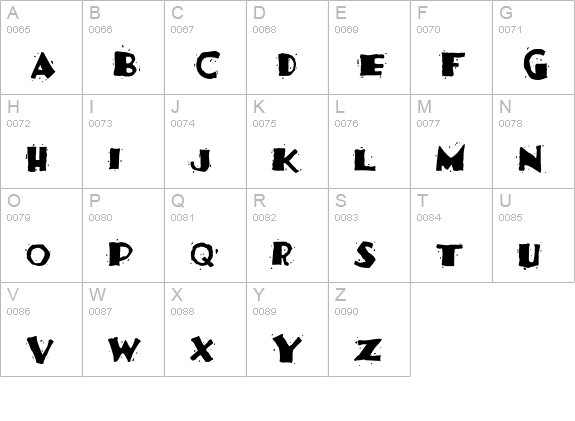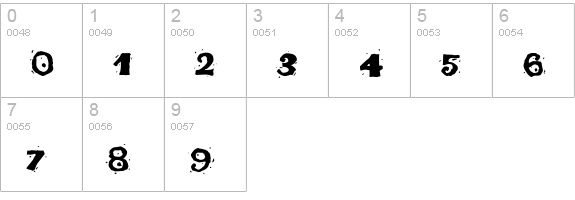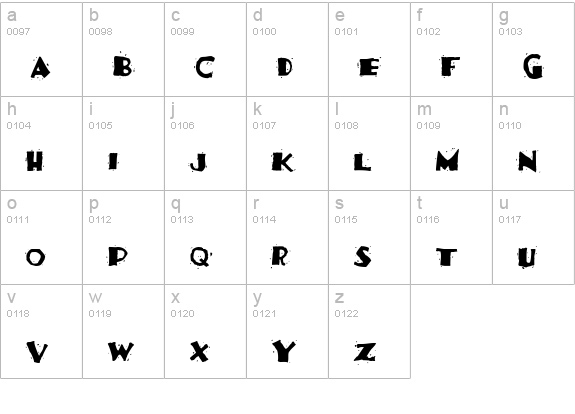
TacoFestiva Font Details
TacoFestiva font is a delightful and whimsical typeface that will add a dash of fun and excitement to any design project. With its playful curves and unique letterforms, this font is perfect for creating eye-catching headlines, posters, invitations, and more. Inspired by the vibrant colors and flavors of Mexican street food, TacoFestiva captures the essence of fiestas and celebrations. Each letter is meticulously crafted with attention to detail, resulting in a font that is both visually appealing and highly legible. One of the best things about TacoFestiva is that it is free! Yes, you read that right. This fantastic font is freely available to download at FontsMarket.com. Whether you're a professional designer or a hobbyist, you can now enjoy the creative possibilities of TacoFestiva without breaking the bank. Not only is TacoFestiva free, but it also comes with a wide range of characters and glyphs, including uppercase and lowercase letters, numbers, punctuation marks, and special symbols. This versatility allows you to express your creativity and bring your designs to life with ease. So, why wait? Bring a taste of the fiesta to your designs and download TacoFestiva today. With its playful charm and accessibility, this font is sure to spice up any project and leave a lasting impression. Don't miss out on this fantastic opportunity to enhance your design toolkit with a free and fabulous font. Head over to FontsMarket.com and get your hands on TacoFestiva now!